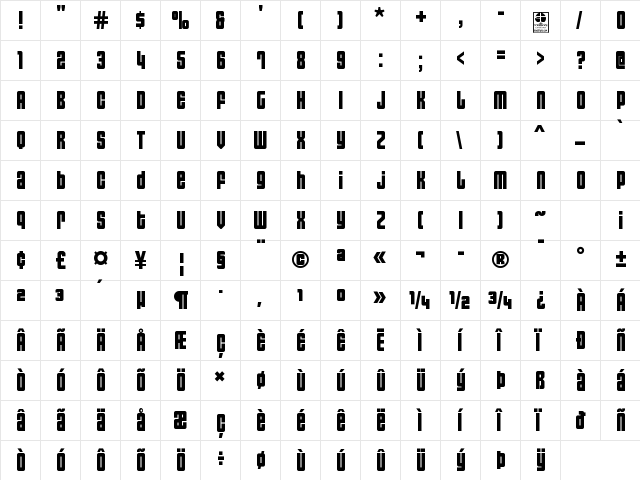
Asectica Simple Demo Regular
| Foundry | StudioTypo |
| Designer | Mehmet Abac |
Design Context for Asectica Simple Demo Typeface
Asectica Simple Demo is a composed and adaptable typeface that performs quietly and consistently across a wide range of design contexts.